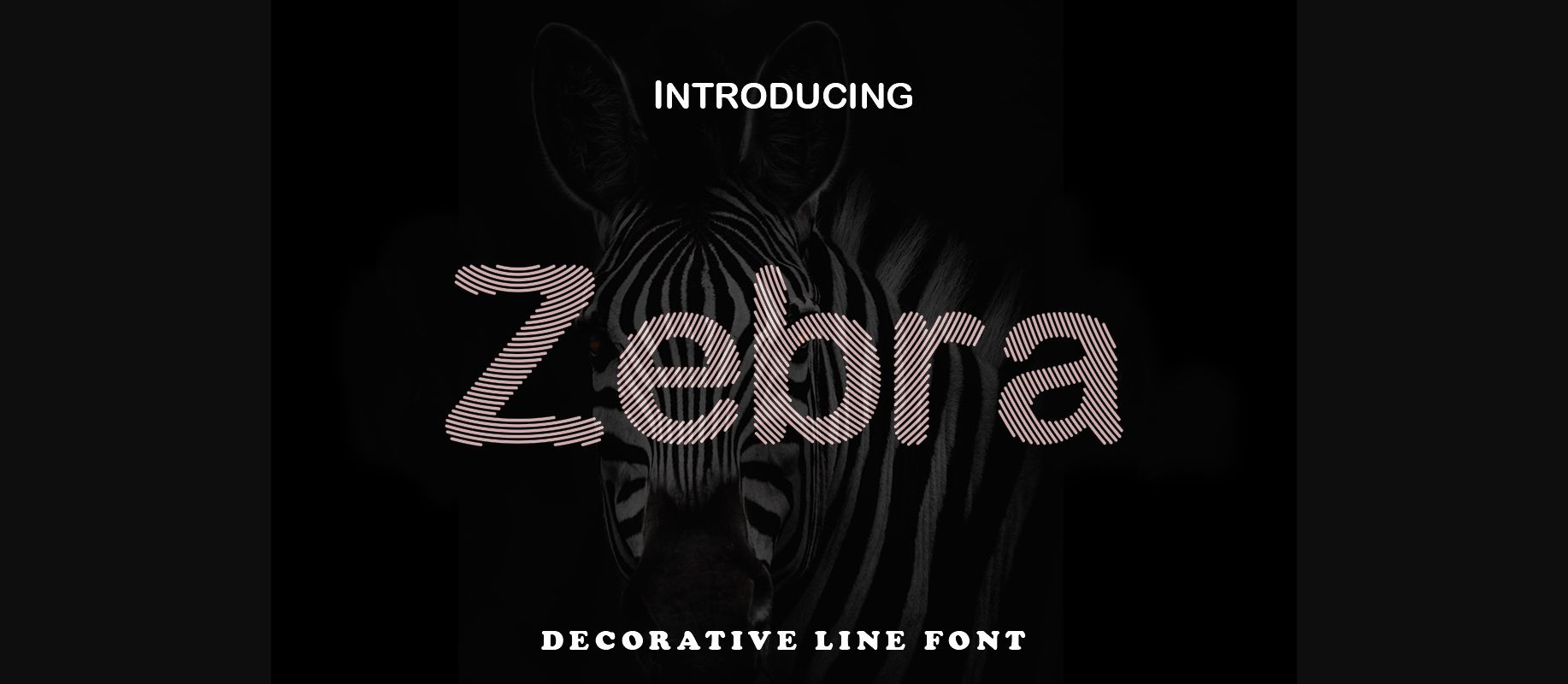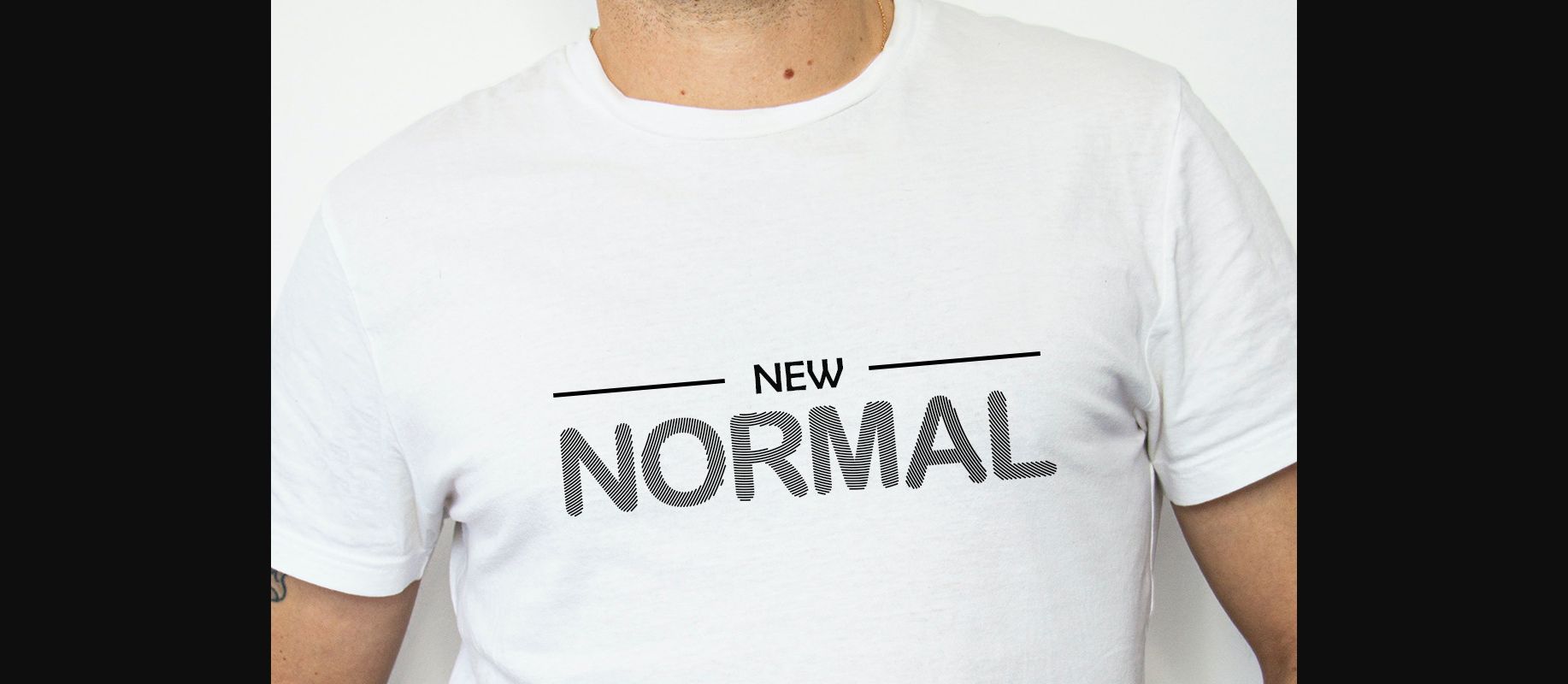
About Zebra Font
Zebra is a modern decorative font with beautiful lines that make it look even more attractive. Font quality is very important, and this font definitely ensures the highest quality.
Zebra Font is perfect for t-shirts, food product banners, food menu designs, store websites, product packaging, headlines, magazines, invitation cards, business cards, and other creative projects that match this typeface.